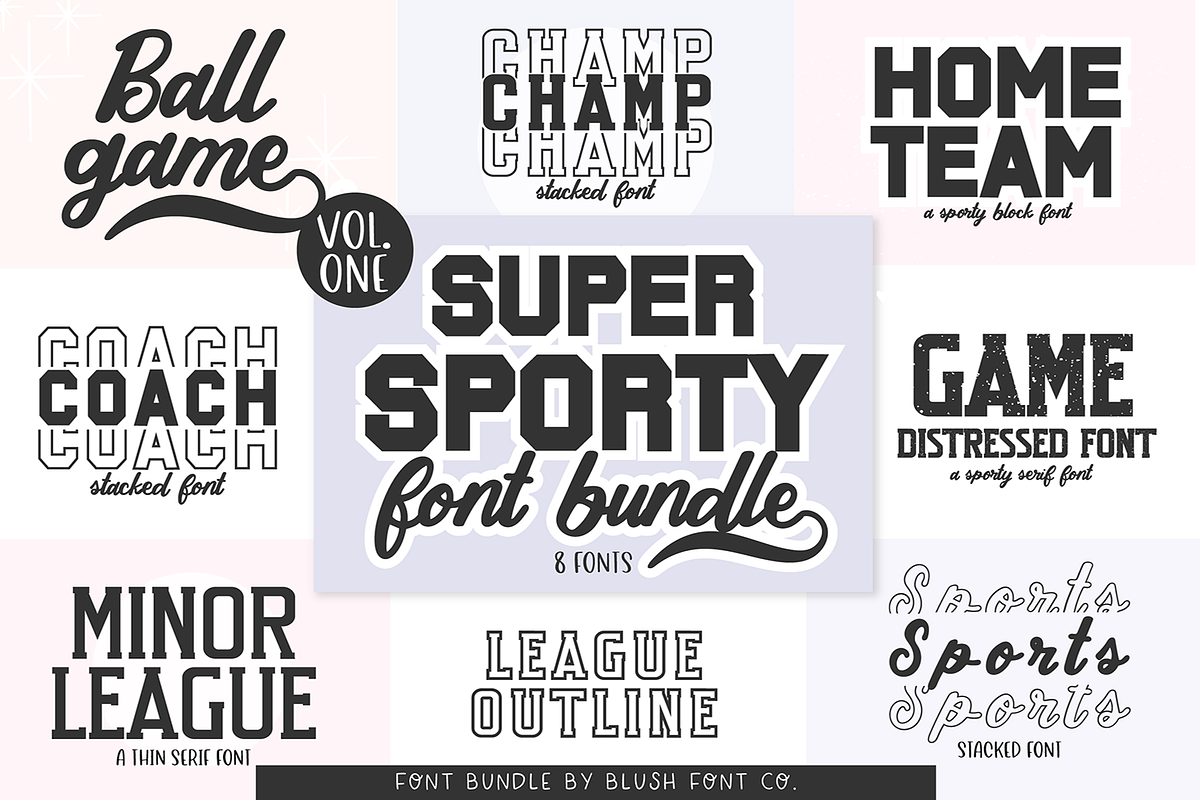
SUPER SPORTY FONT BUNDLE V.1 Free Download is a high-energy collection of fonts designed specifically for sports-related projects. With bold, athletic-inspired styles, this bundle is perfect for creating team logos, sports event posters, merchandise, and branding for fitness and sports brands. The pack includes multiple font styles, including display and sans-serif options, to give you flexibility in your designs.
Using the SUPER SPORTY FONT BUNDLE V.1 Free Download adds a dynamic and strong vibe to your typography. Whether you’re designing for a sports team, an athletic brand, or a sports event, this bundle brings energy, boldness, and professional appeal to your work.